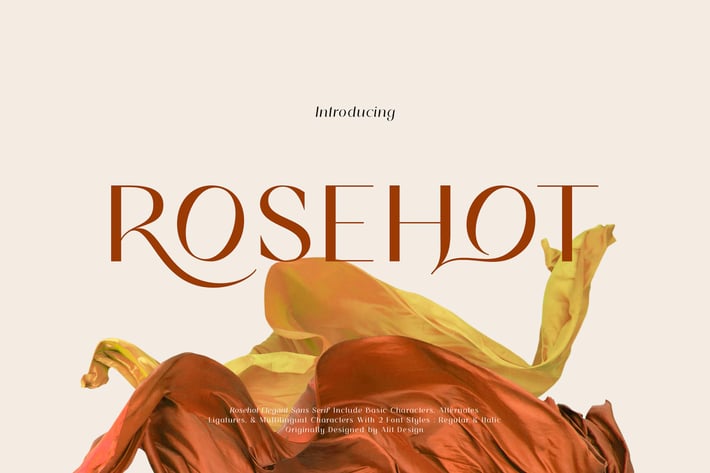
Rosehot Typeface
Introducing Rosehot Serif Elegant typeface
The Rosehot Serif typeface is an elegantly themed font that has a dynamic serif style. The details of the shape of the "Rosehot Serif Elegant typeface" are very smooth and flow to create unique and beautiful curves. Elegant Serif typefaces such as “Rosehot Serif Elegant typeface” are very easy to apply to any design, especially those with an elegant and smooth concept, besides that this font is very easy to use both in design and non-design programs because everything changes and glyphs are supported by Unicode (PUA).
The Rosehot Serif Elegant typeface contains 559 glyphs with many unique and interesting alternative options.